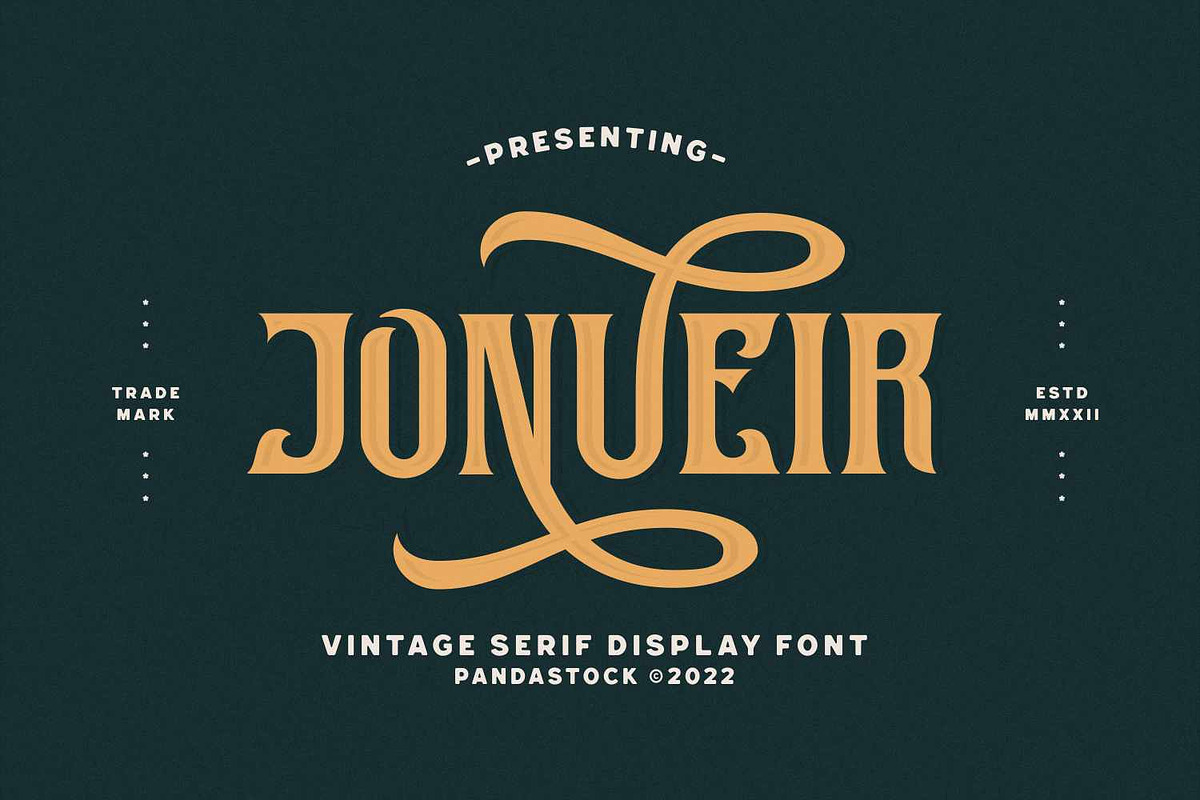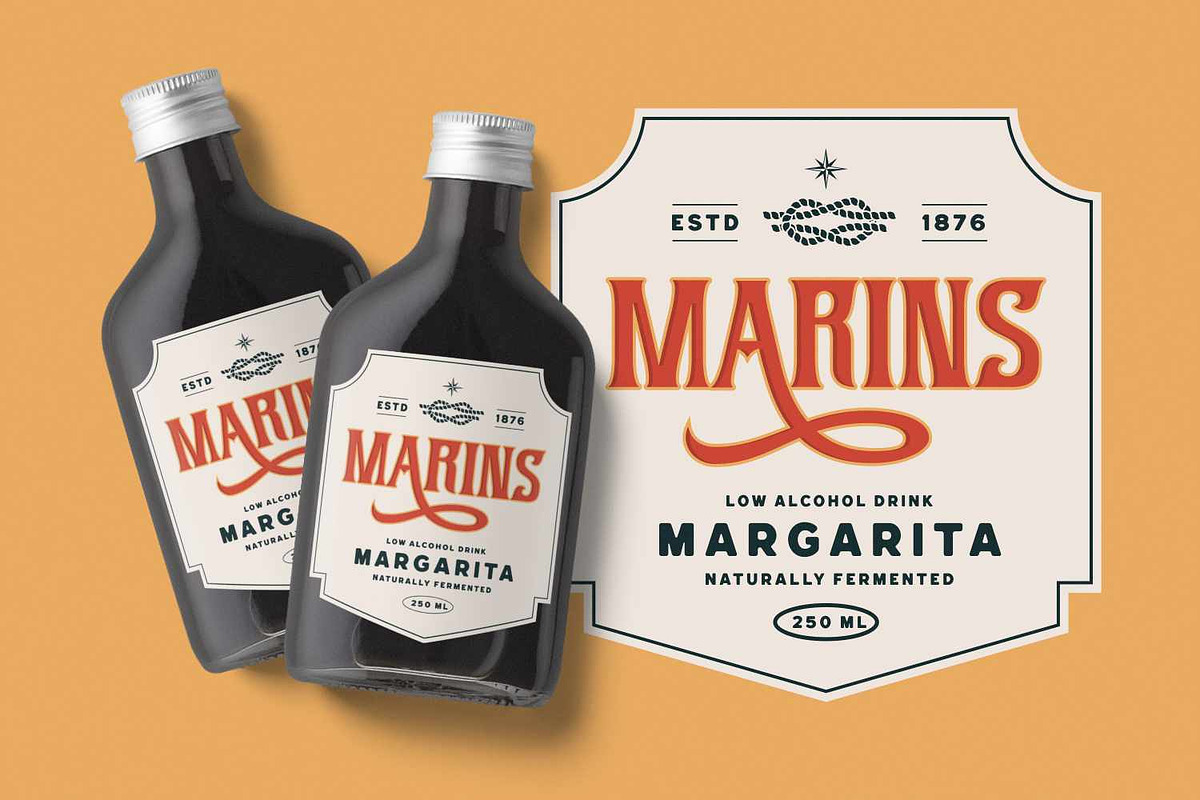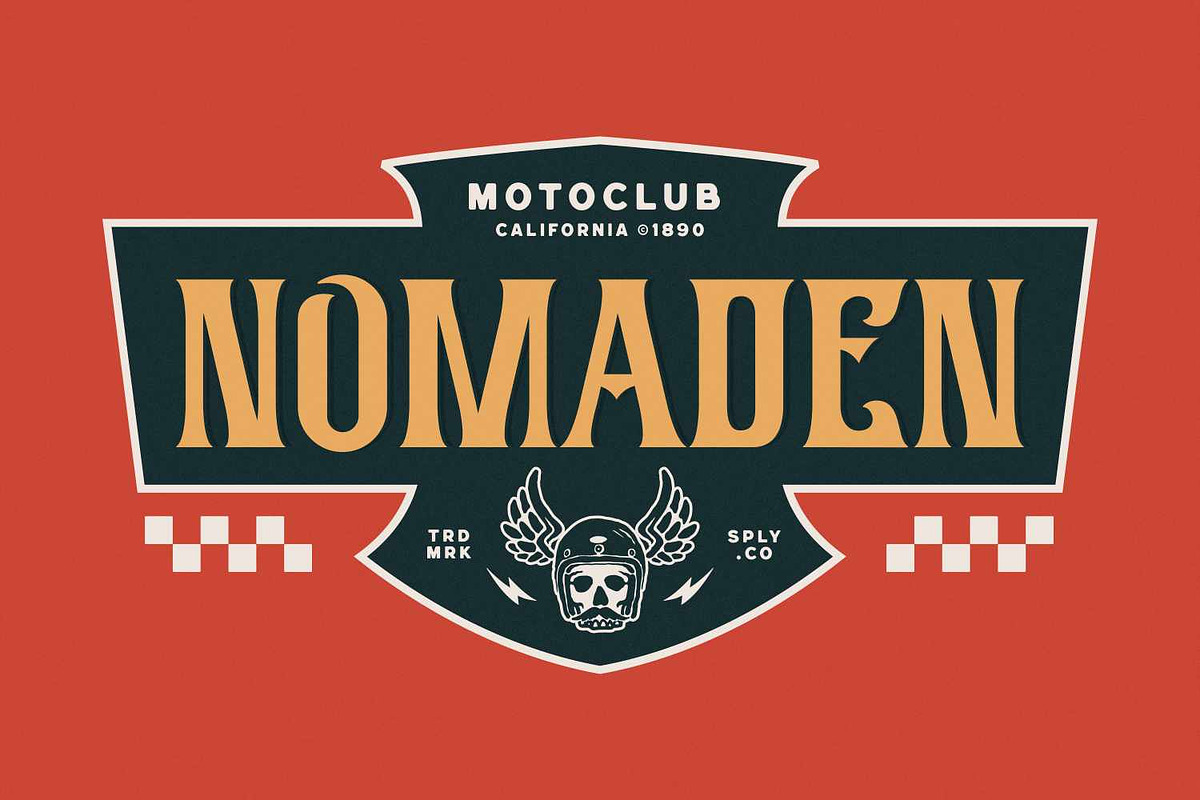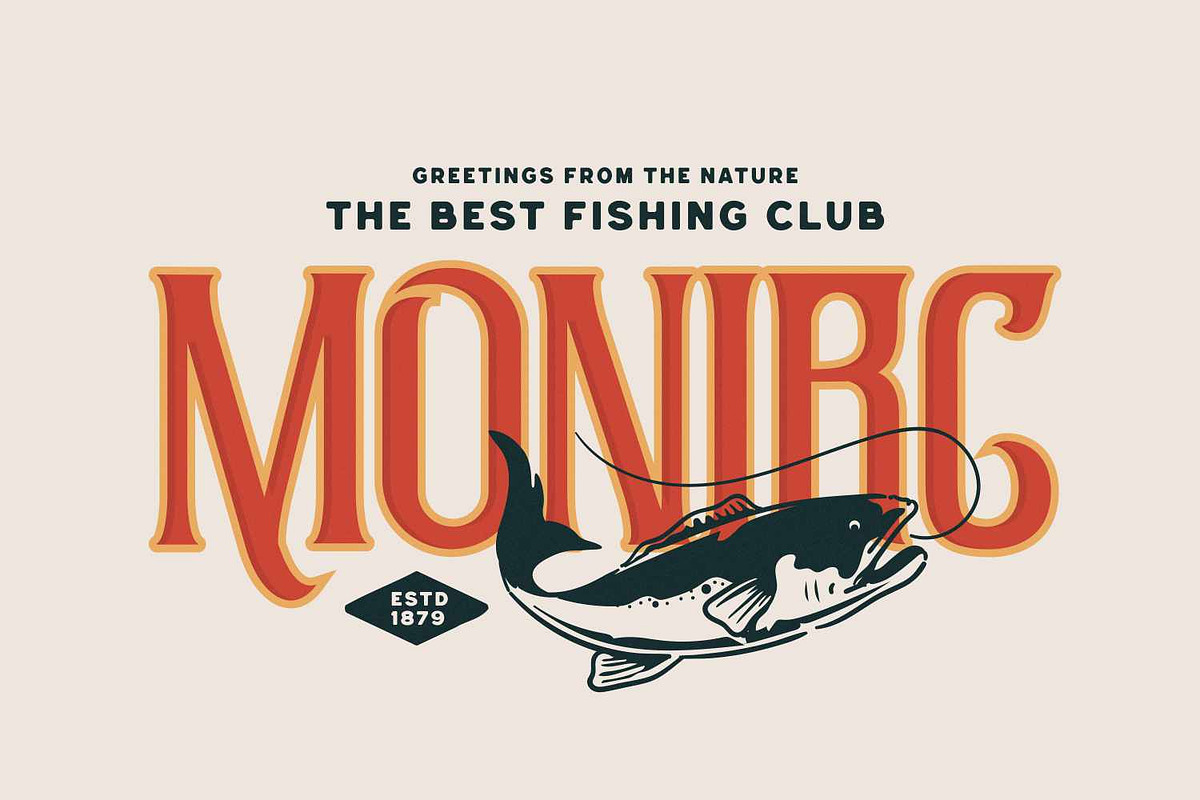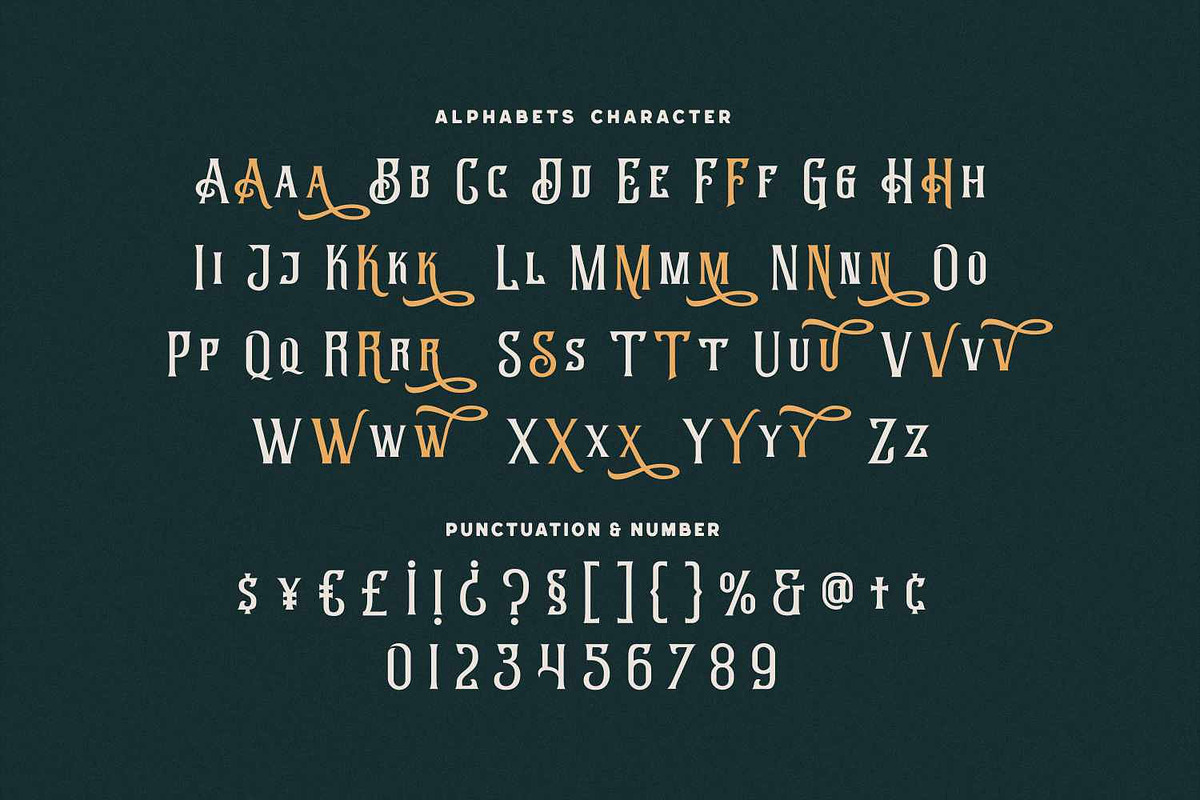
Jonueir - Vintage Serif Display Font
Bring timeless, classic charm to your creative projects with Jonueir, a vintage serif display typeface crafted for bold statements and authentic vintage aesthetics.
This font strong condensed proportions, sharp serifs, and sweeping dynamic swashes, Jonueir the spirit of traditional sign painting, vintage product labels, and classic branding.
Jonueir features a rich collection of stylistic alternates and extended swash characters, allowing you to create custom looking logos and headlines with ease. Whether you need a simple, clean serif or a dramatically swooping display title, this font offers the flexibility to elevate your designs instantly.
Uppercase and Lowecase Characters.
Numerals and Punctuations.
Alternates and Ligatures.
Multilingual Support.